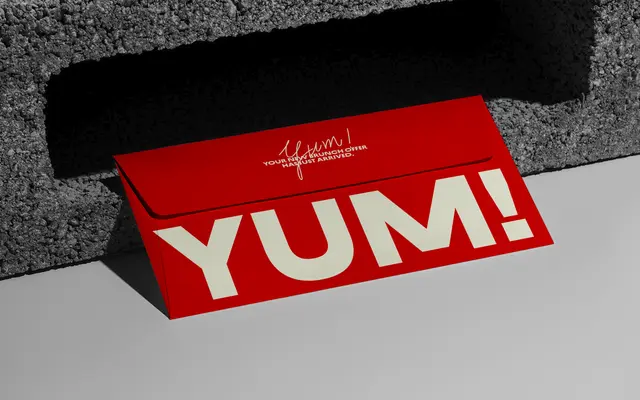
A five-weight sans-serif whose width varies as a conceptual gesture, expanding with memory and contracting with reality.
Built around a single emotional concept, the typeface uses dynamic width as its defining characteristic, with each style shifting proportions to reflect the tension between longing and loss. Five weights run from Thin to Bold, with Latin Extended glyph coverage including South Slavic characters. Better suited to display and editorial contexts than sustained text setting.
A sans-serif with a conceptually driven dynamic width axis, expanding and contracting across styles to reflect the emotional premise of the typeface's name.